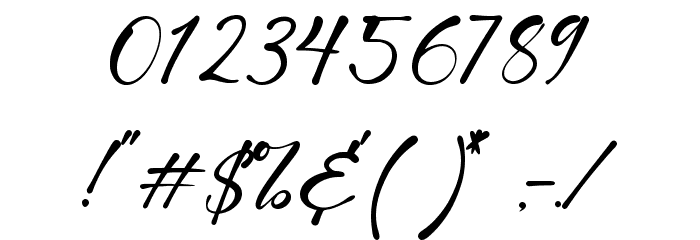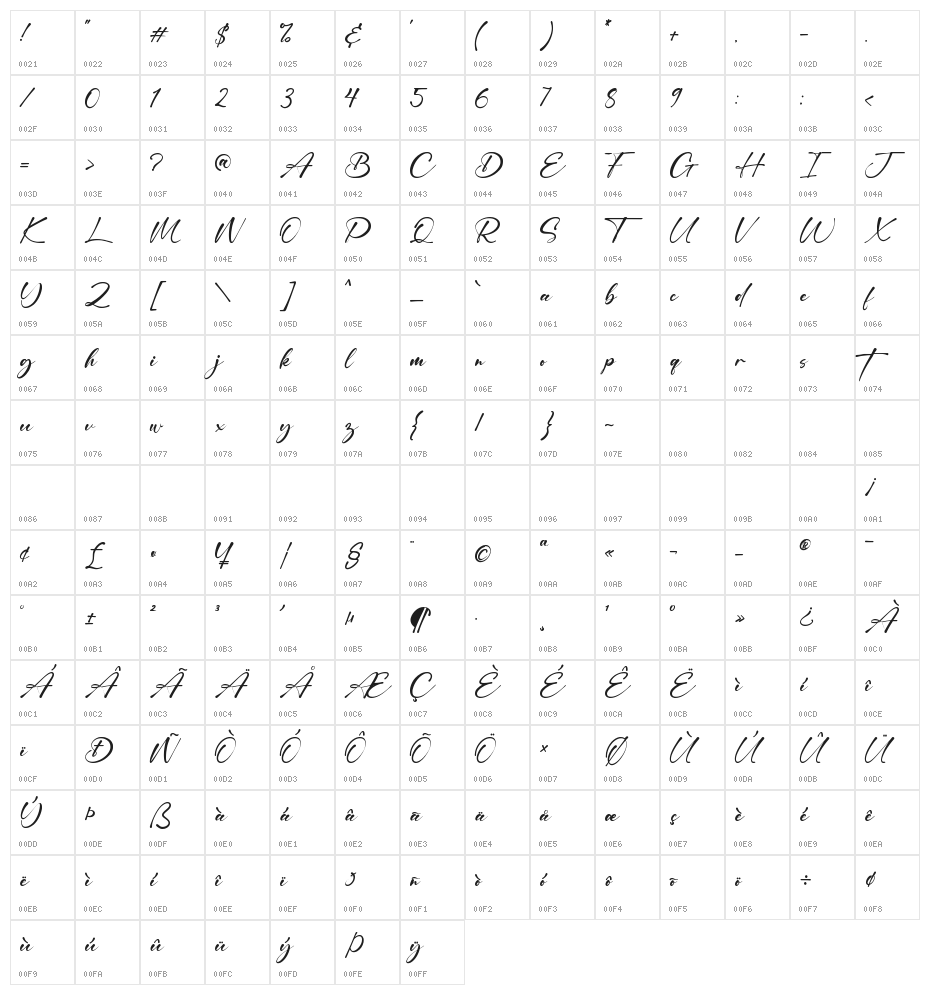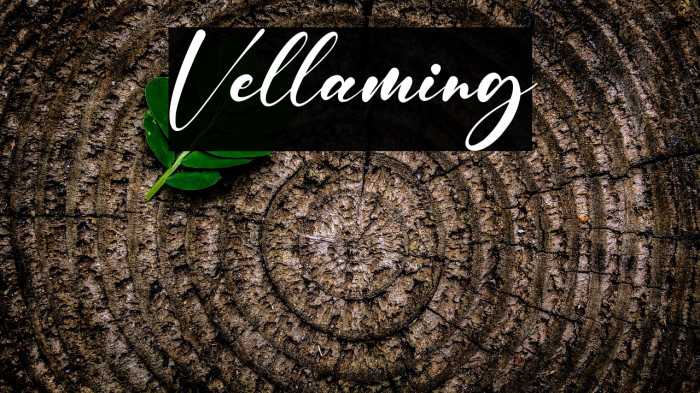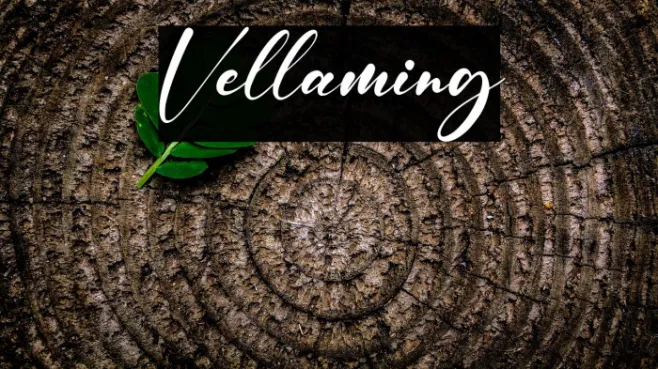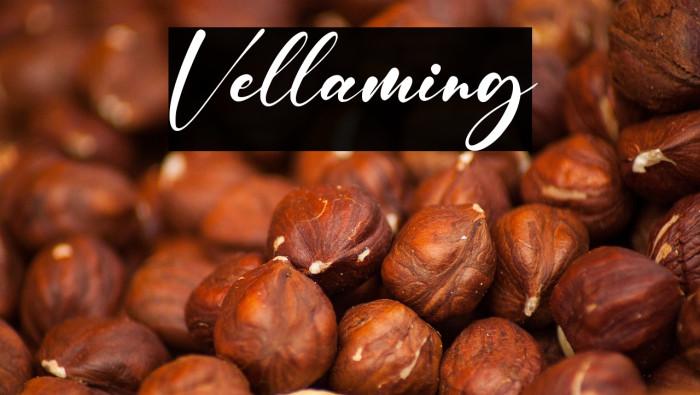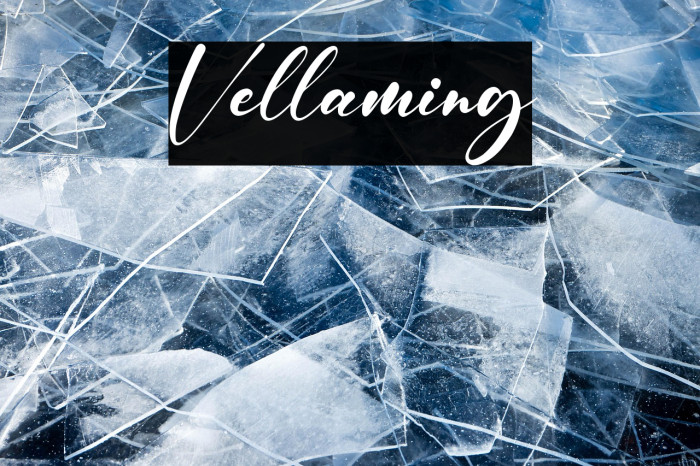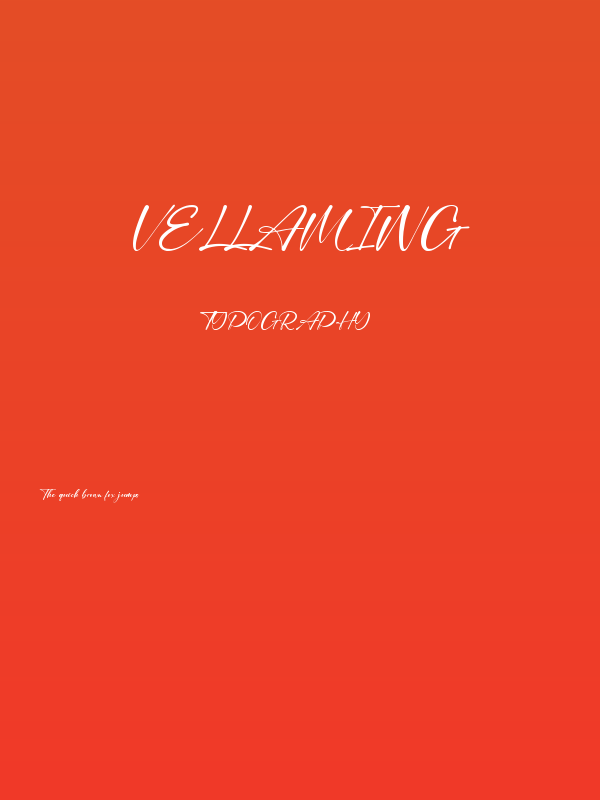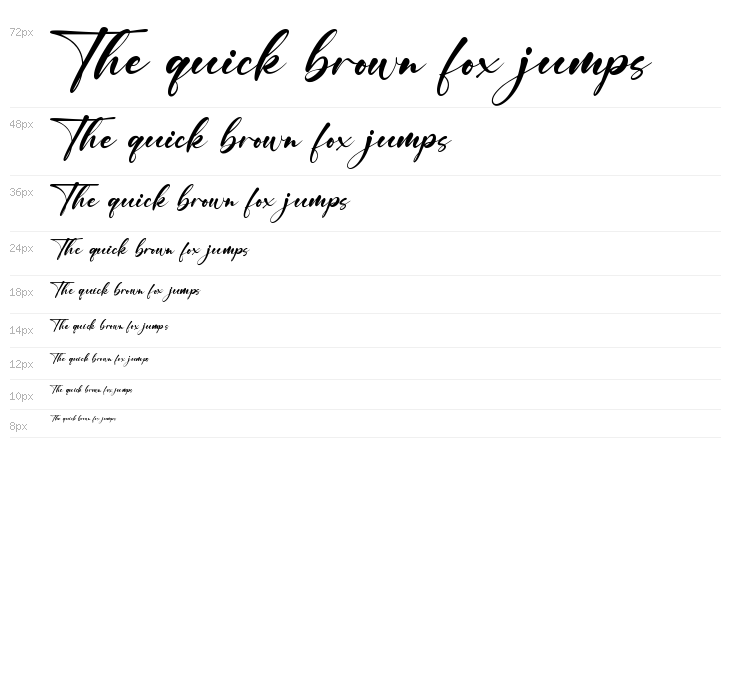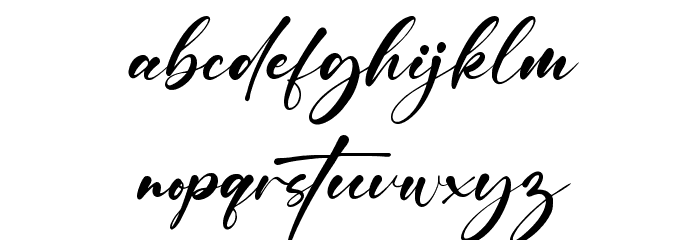
Vellaming Font
Vellaming Description
This elegant script font features a flowing, cursive style with smooth, interconnected strokes that create a sense of fluidity and grace. The uppercase letters are characterized by their tall, sweeping ascenders and decorative flourishes, while the lowercase letters maintain a consistent rhythm with gentle curves and loops. The numerals and special characters are crafted with the same attention to detail, ensuring a cohesive look across all elements. This font's sophisticated appearance makes it ideal for formal invitations, branding, and other projects that require a touch of elegance.